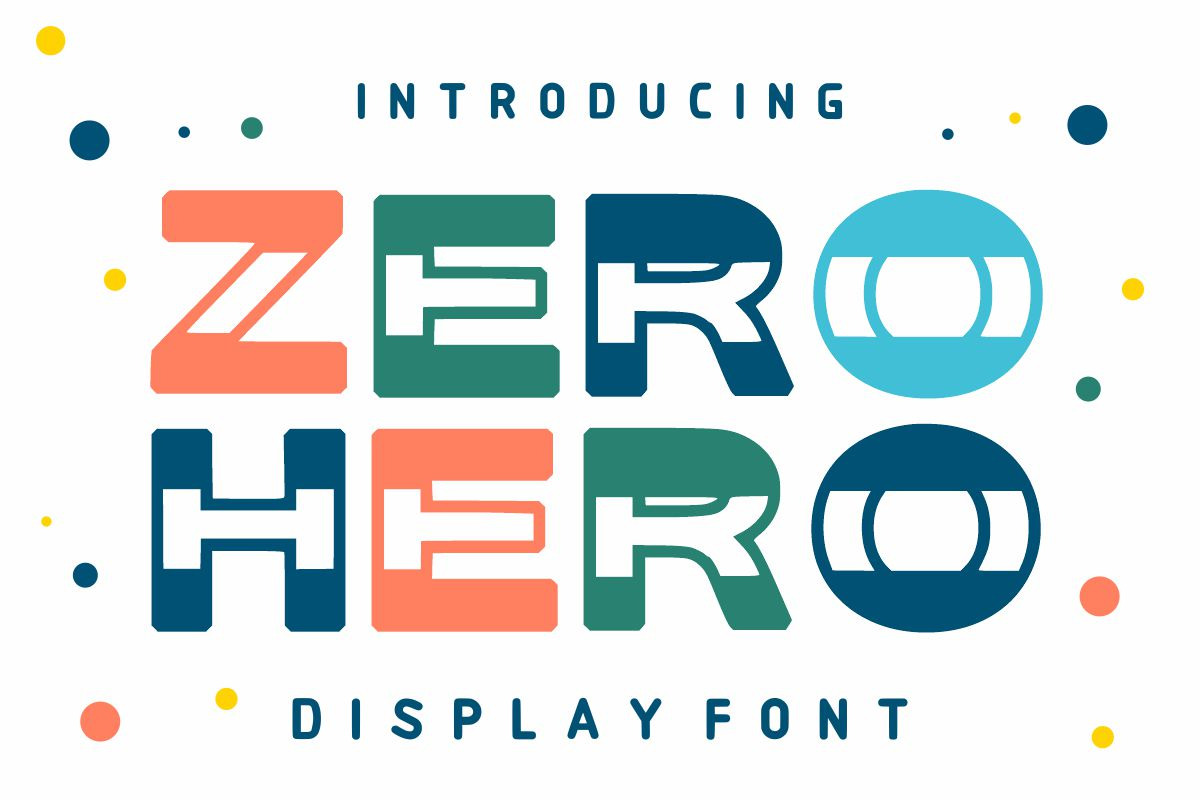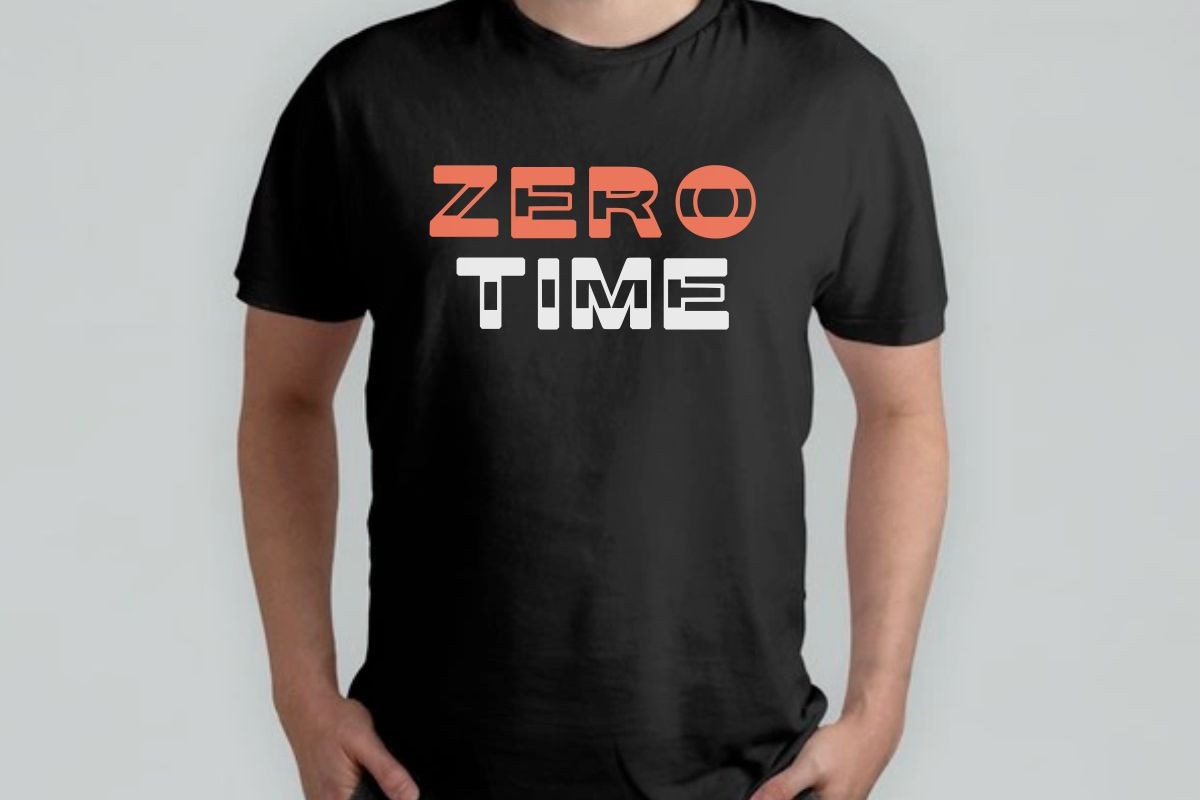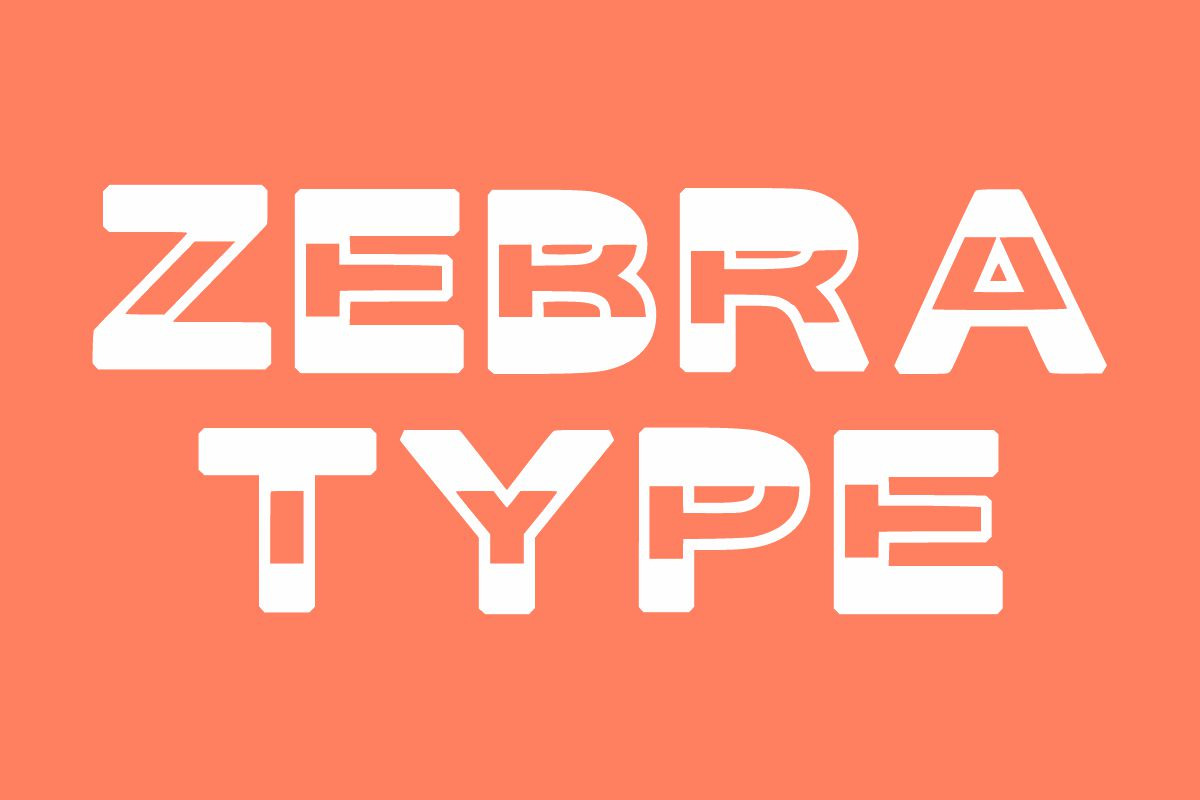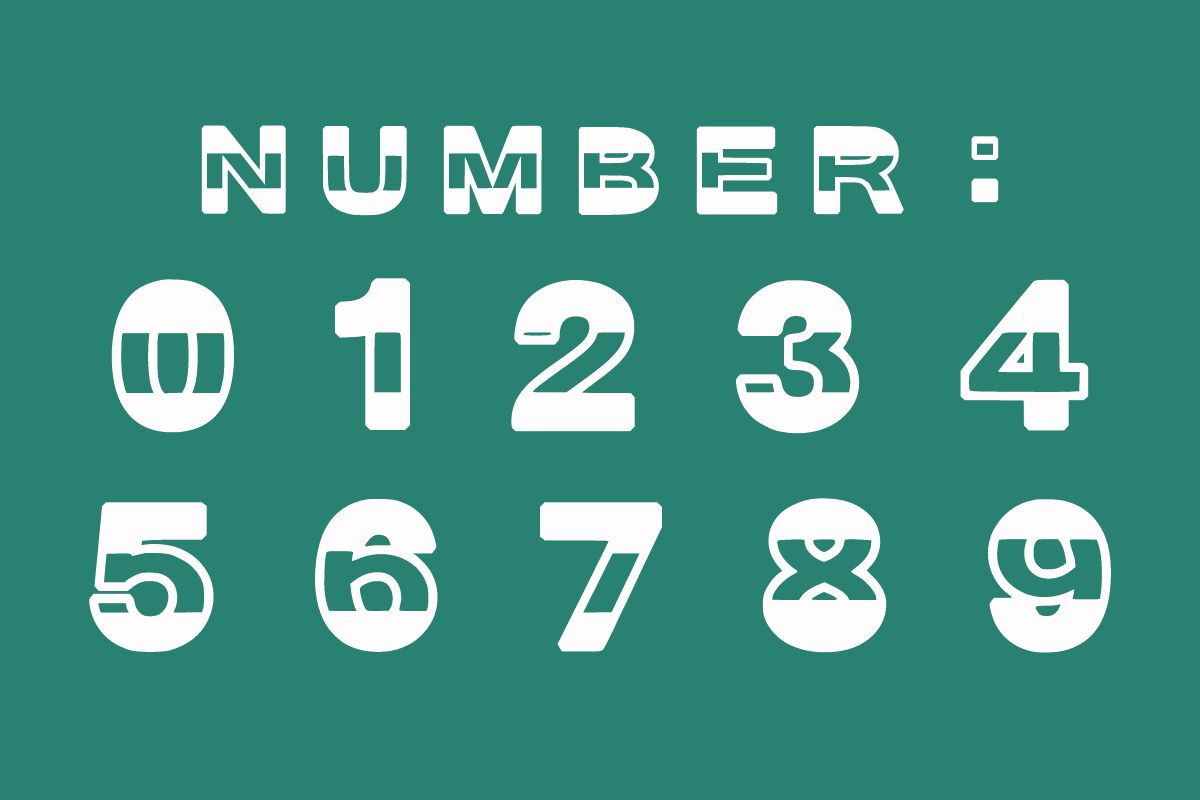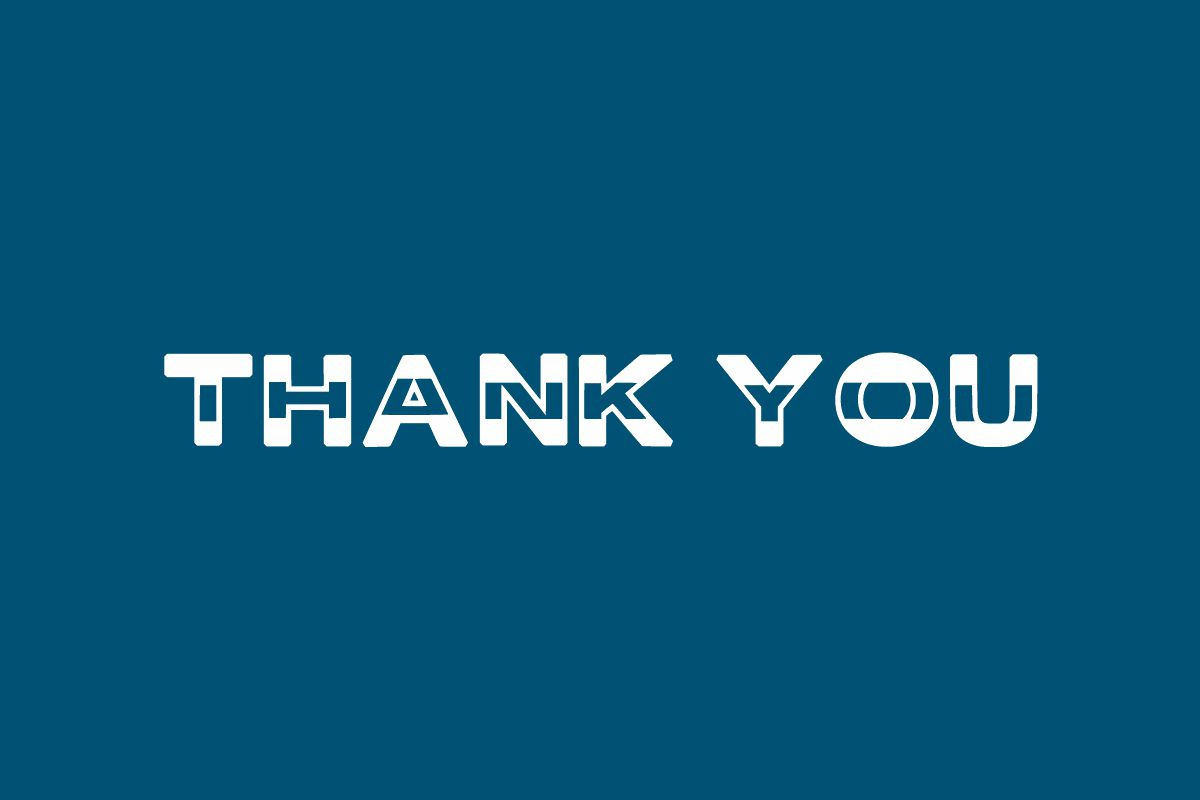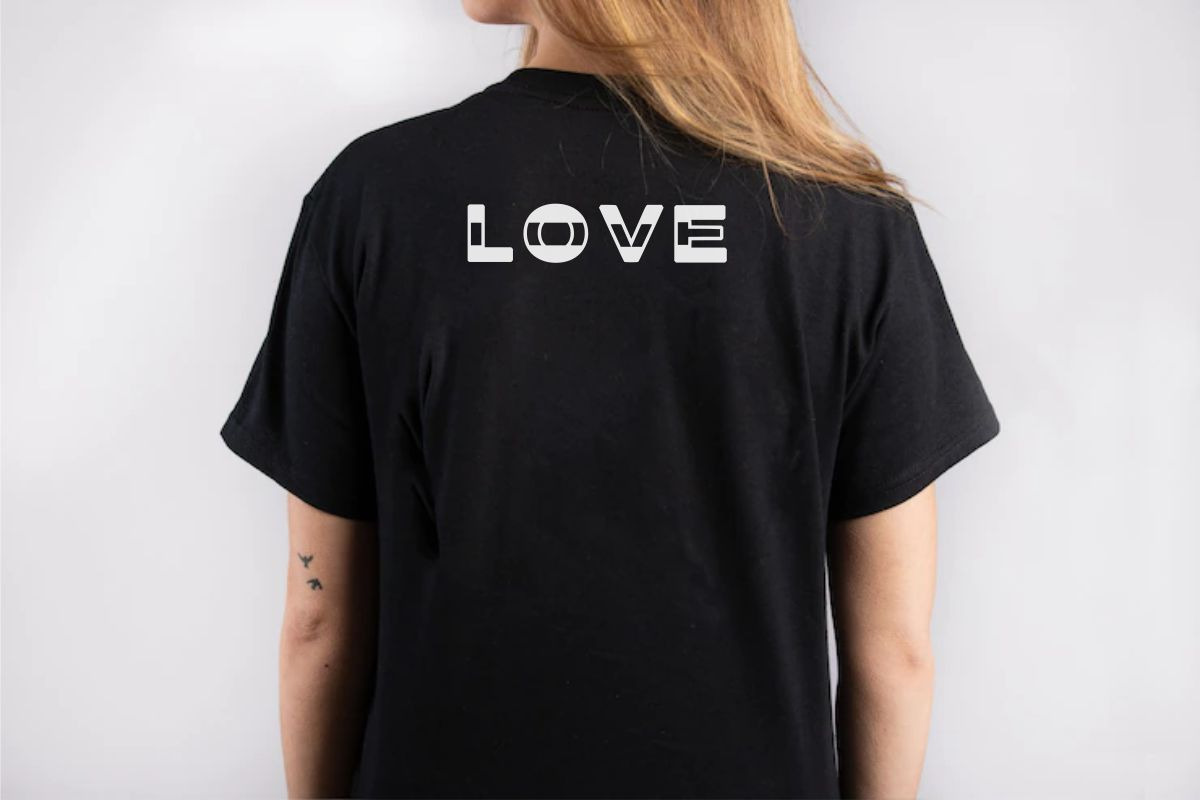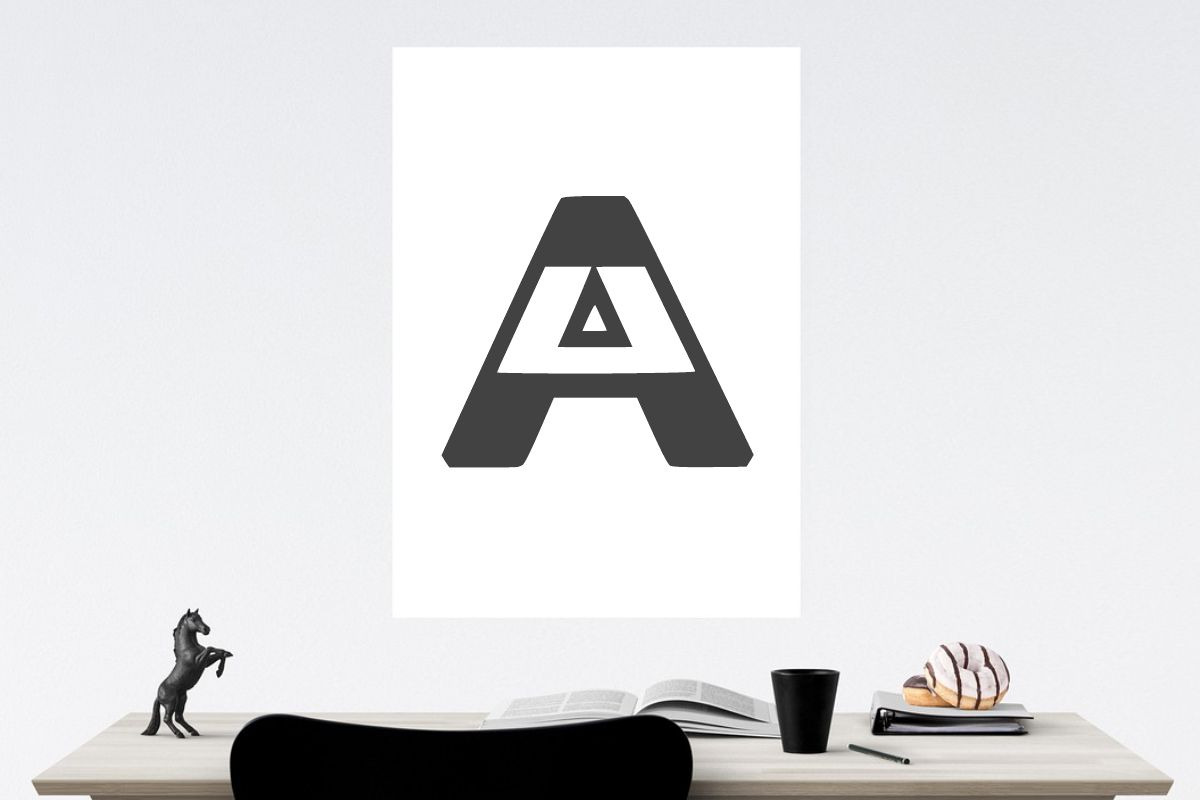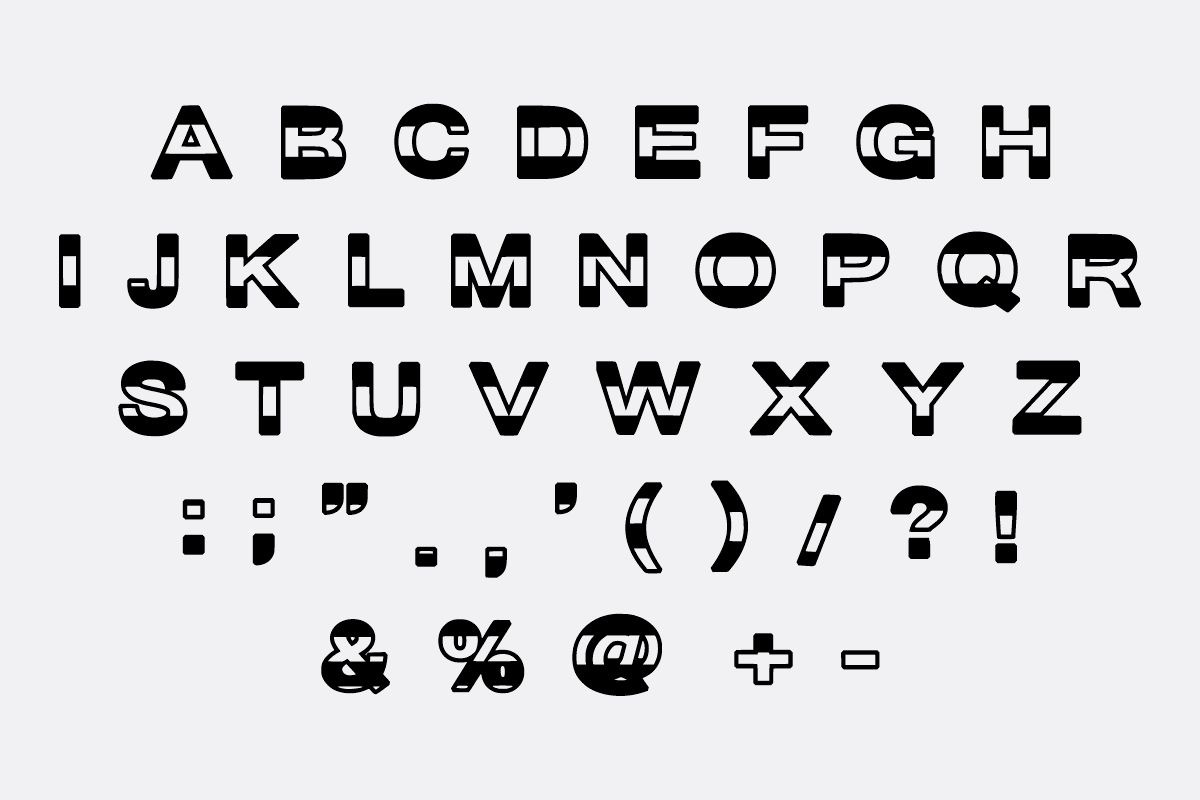
ZERO HERO Display font
Zero Hero is a childish, easy-to-read display font that conveys impeccable friendliness. Whether you’re using it for crafts, digital design, presentations, or greeting cards, this font has the potential to become your favorite go-to font, no matter the occasion!